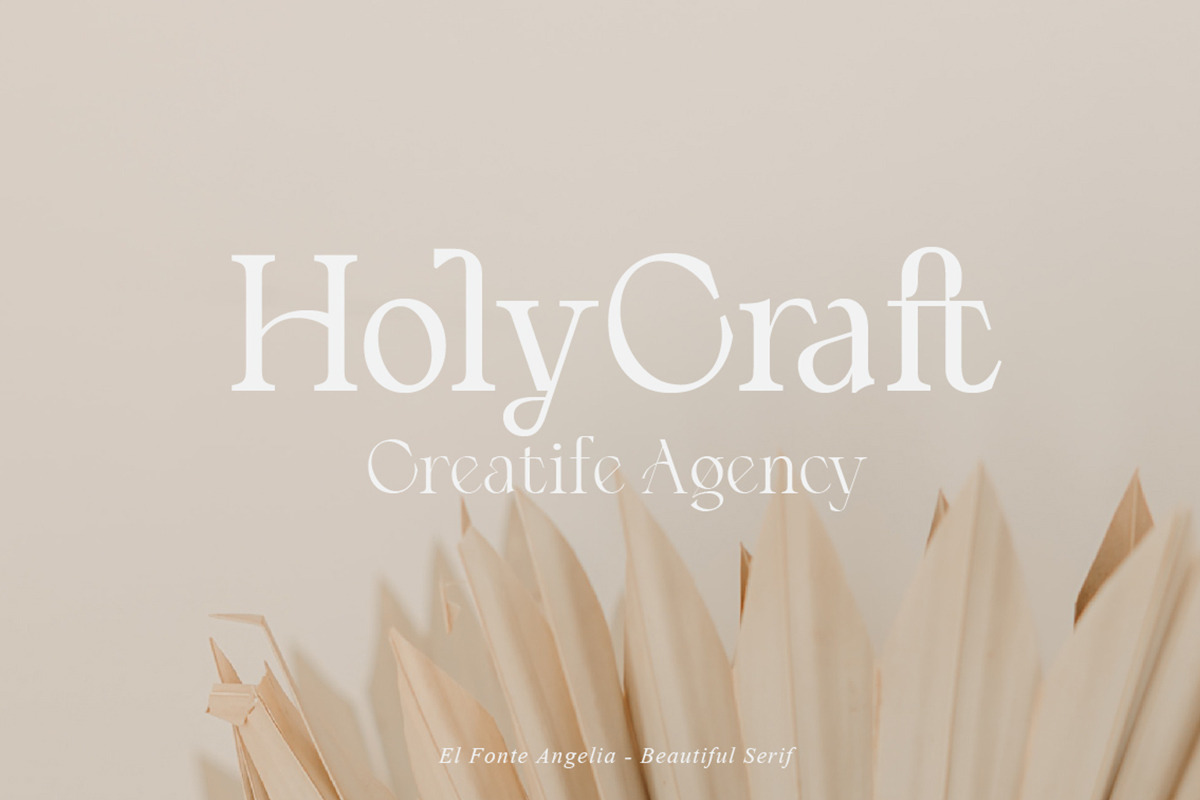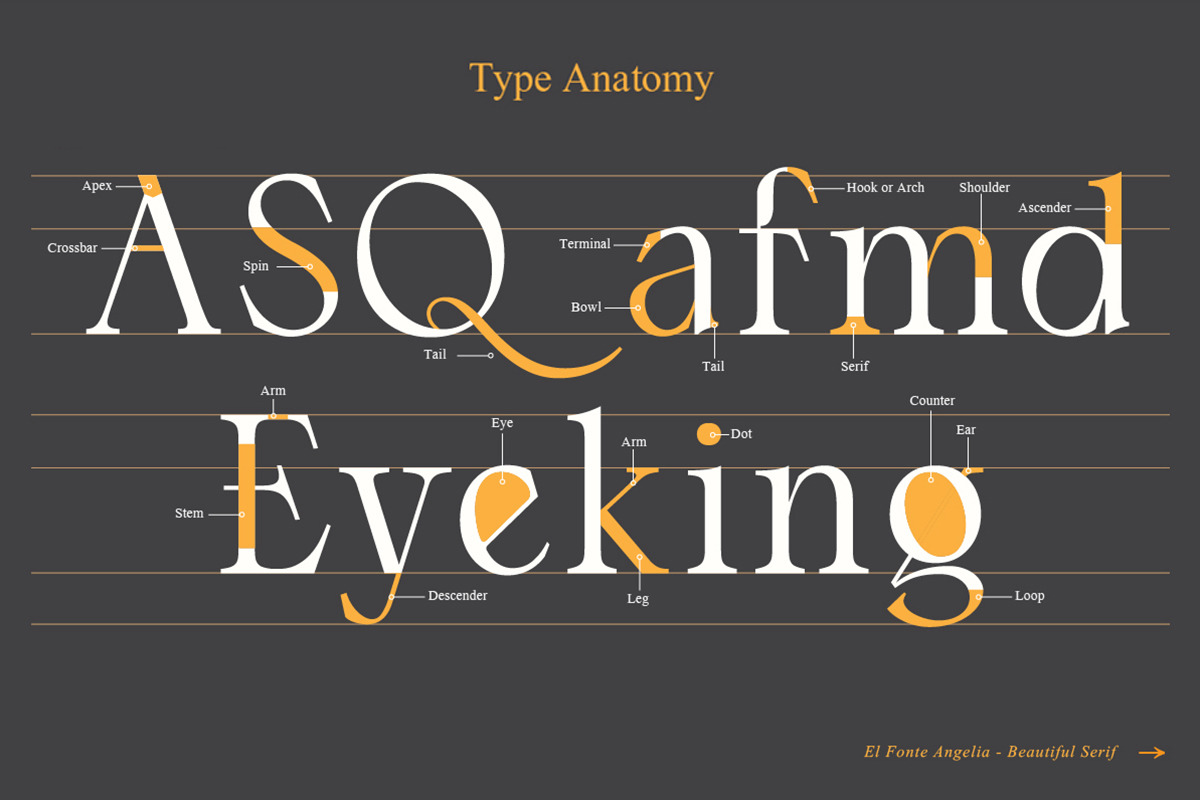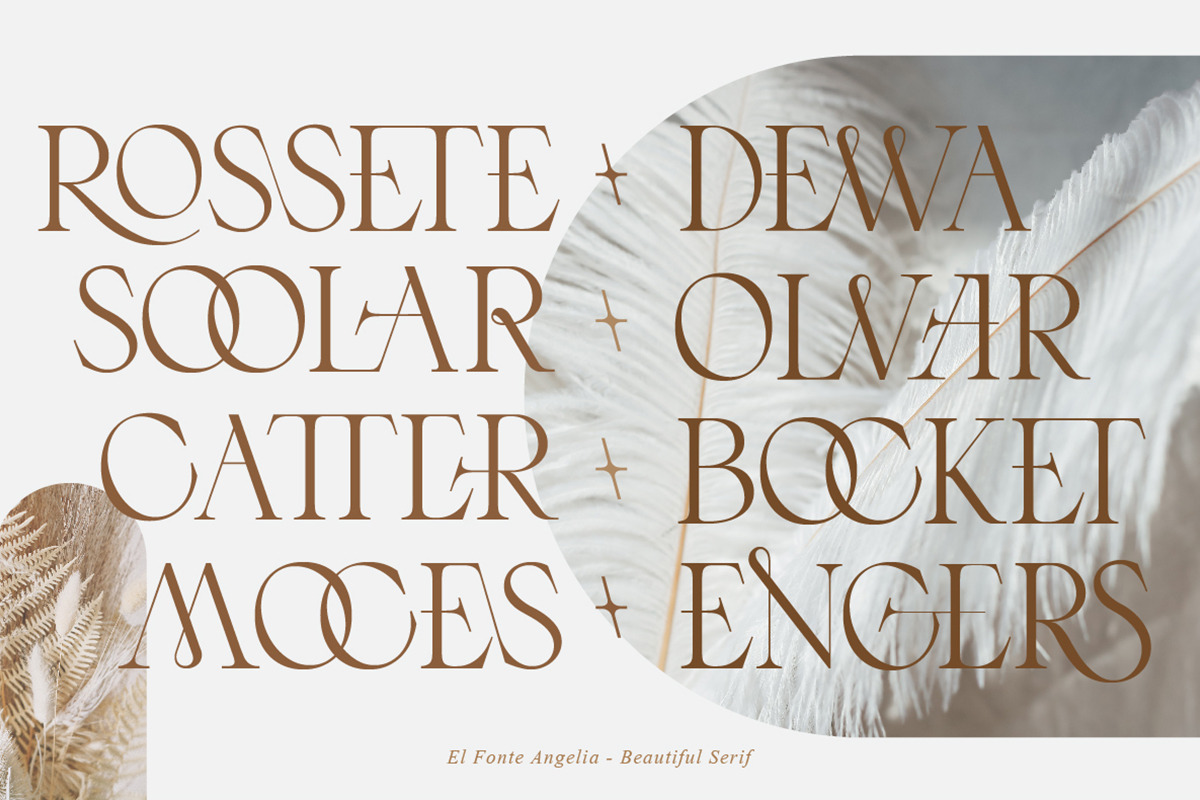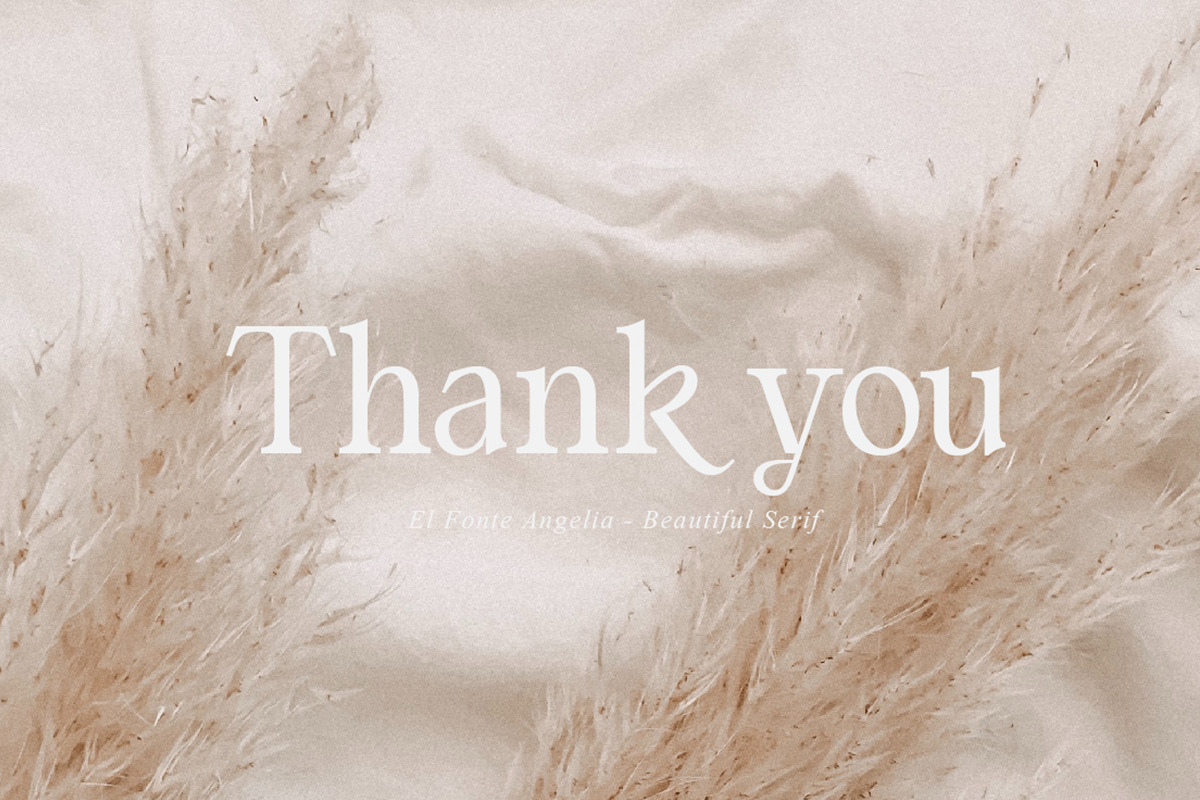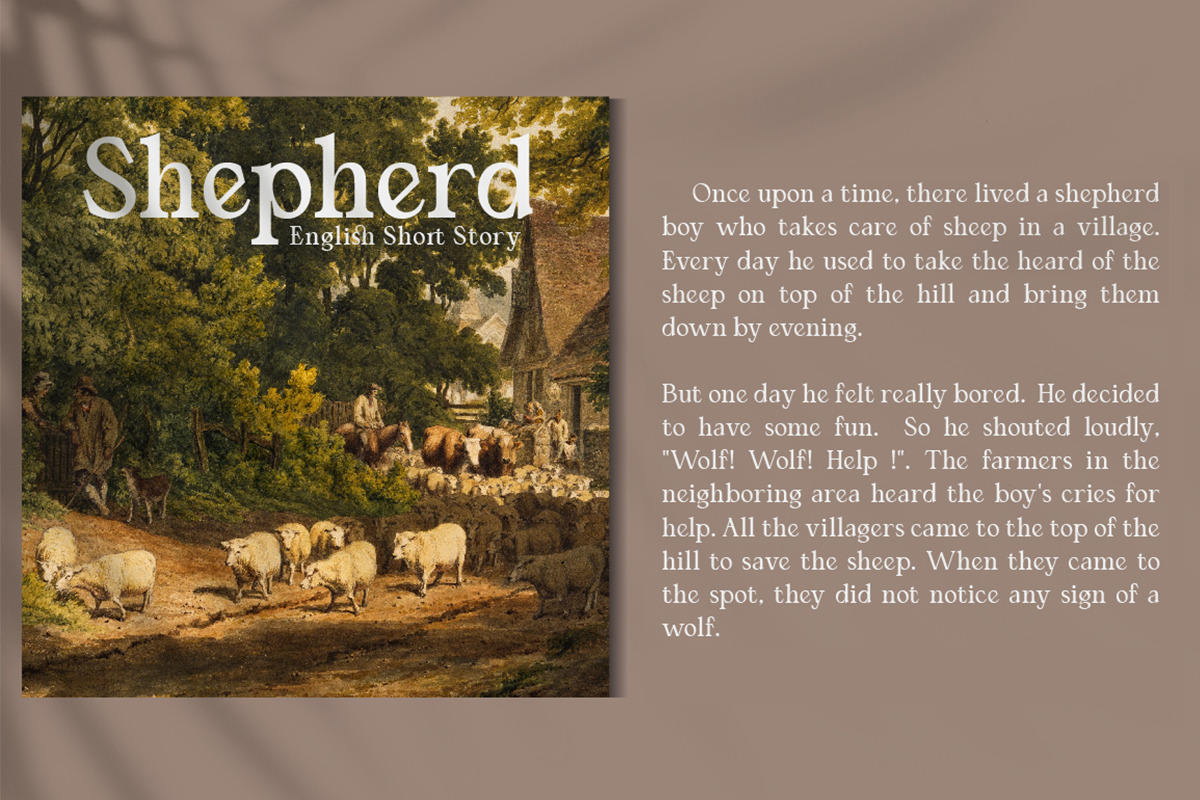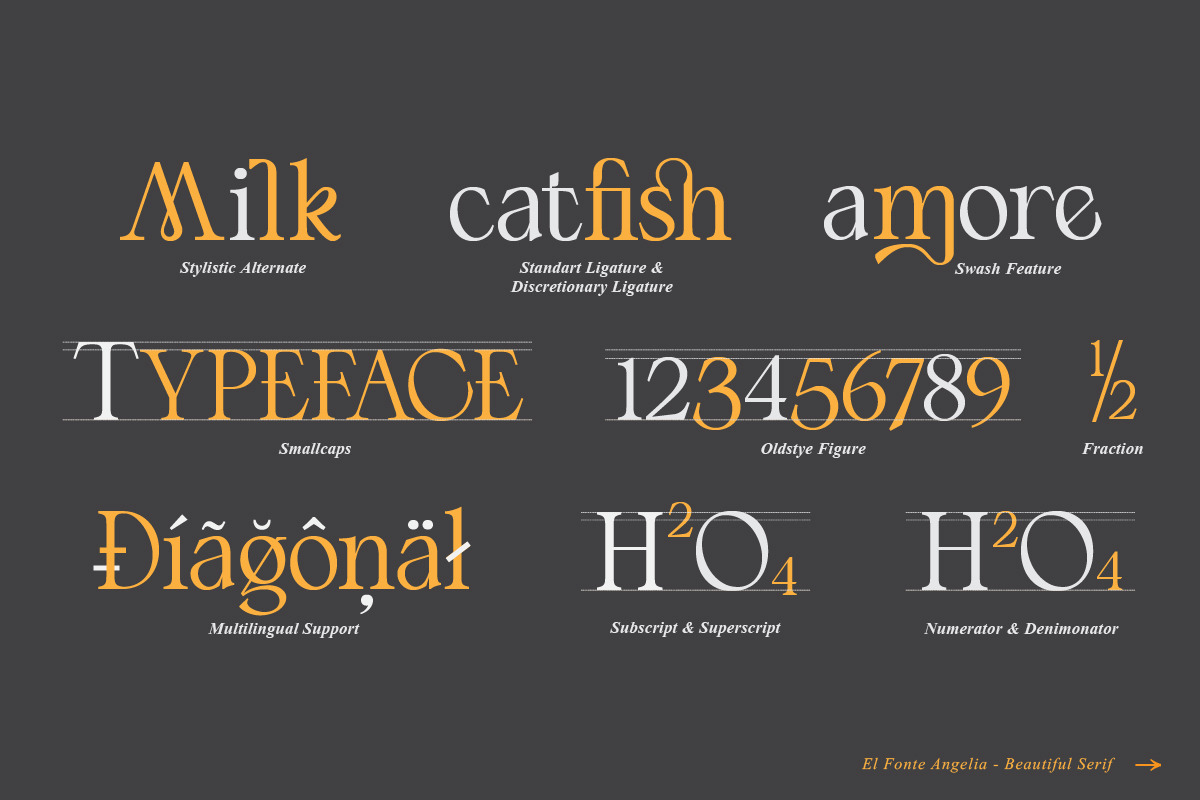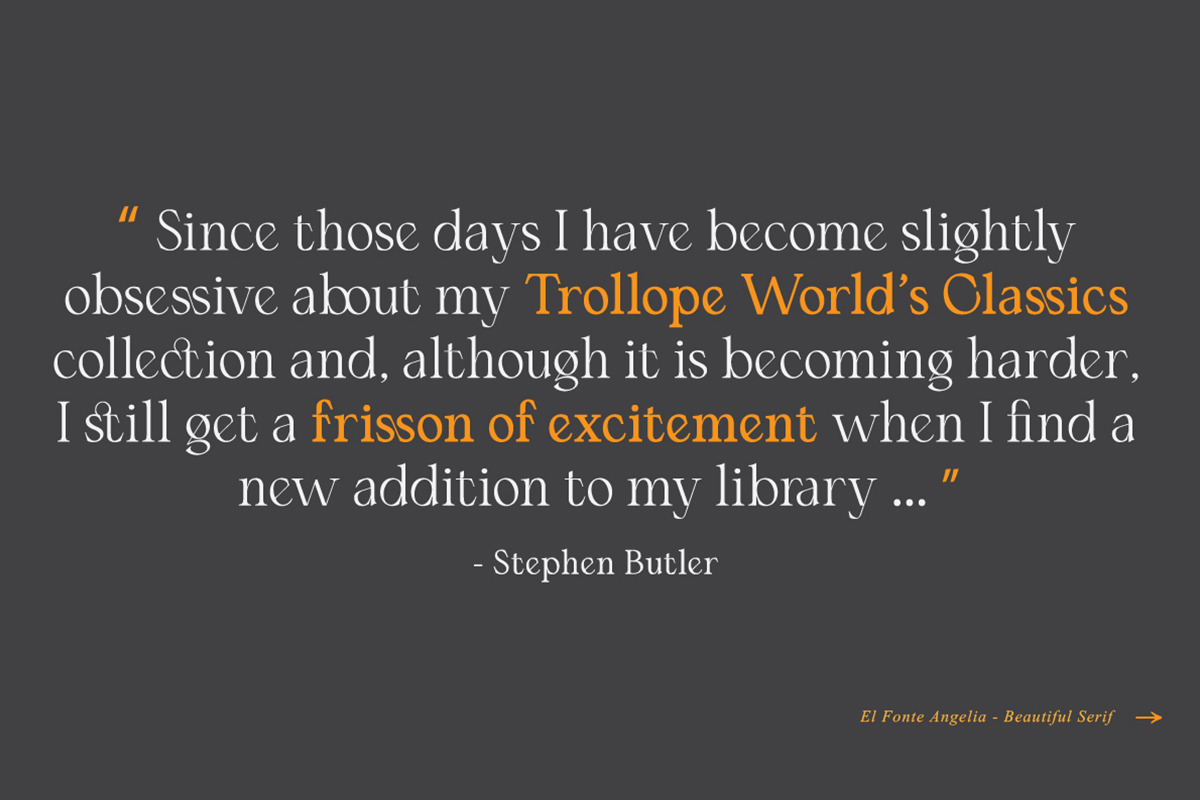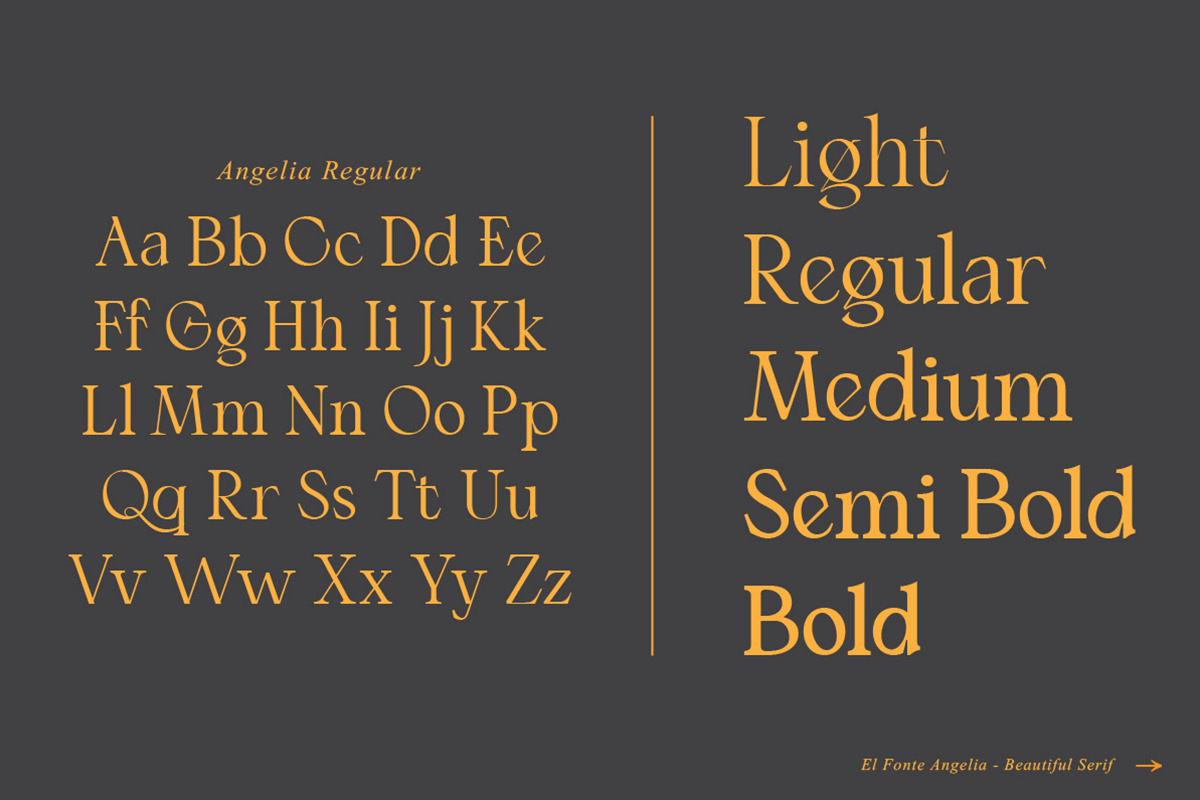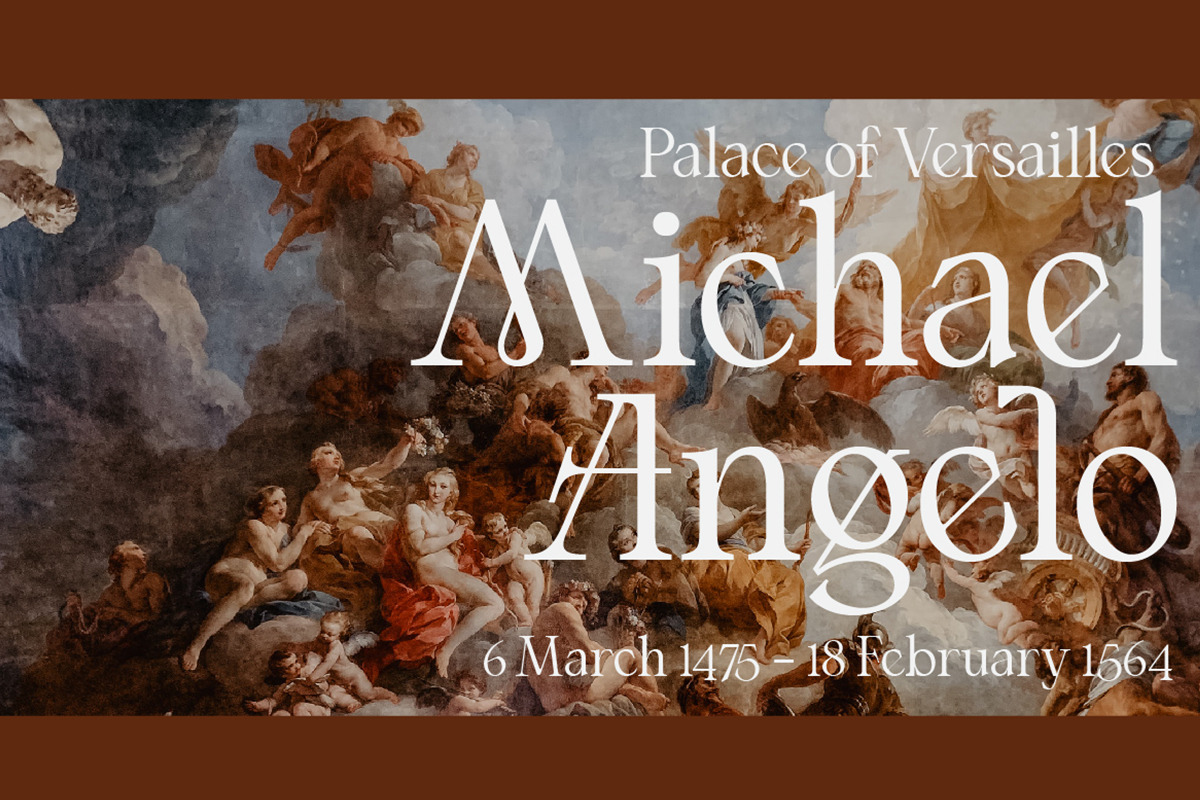
El Fonte Angelia | Ligature Serif
Introducing a new Font " El Fonte Angelia "
Beautiful Serif Type Family is inspired by the serif typefaces used in editorial media in the 70s and 80s.such as the soft and gentle shapes found in Cooper or the fluid, angled strokes in Windsor— mixed into one single design that features familiar, fresh, modern flavors.
El Fonte Angelia character set with 691 Glyph incorporates additional symbols, stylistic alternates, unique ligatures and case sensitive punctuation - producing a stable workhorse family ready to tackle projects of any size.
El Fonte Angelia variable allows fluid design across 5 weights. The font broadens its use by supplying weights all the way from Light to Bold. The natural curves, swells and sloping trunks, grow in character as the font gains weight. Whilst the thinner weights have lowered contrast and optical corrections to create a warm and gentle appearance.
Number & Symbol
Multi language